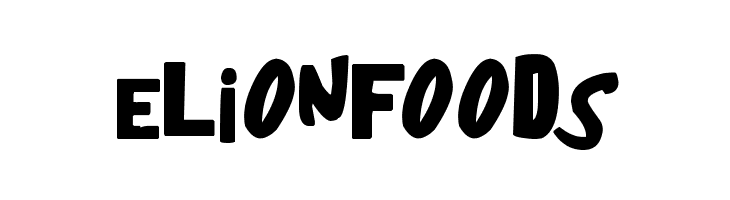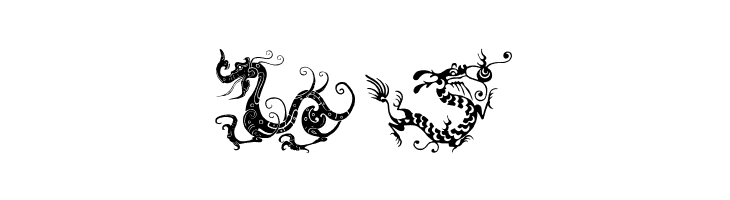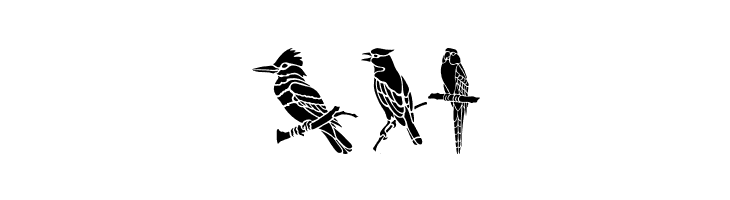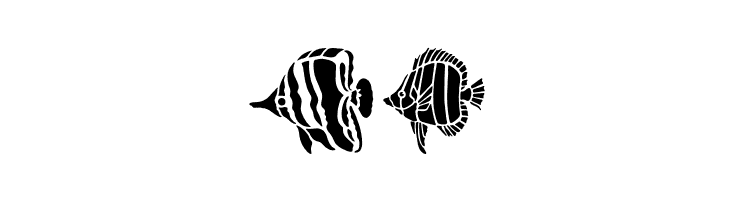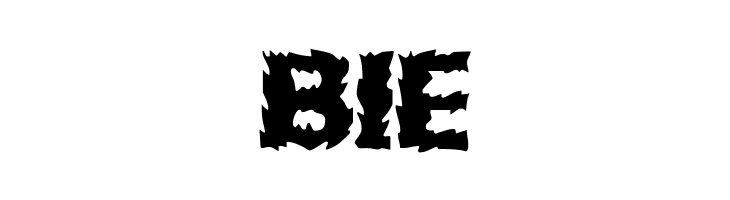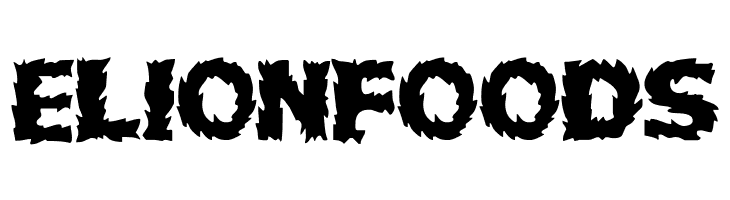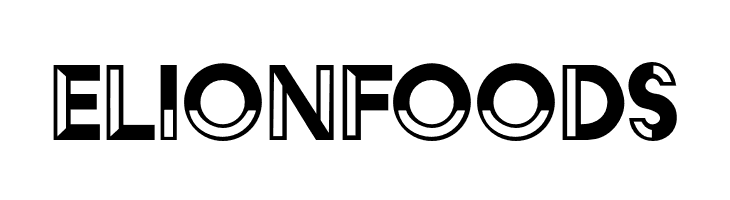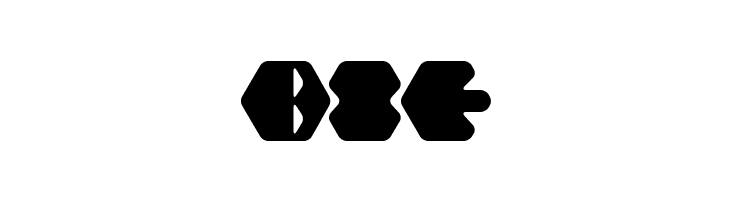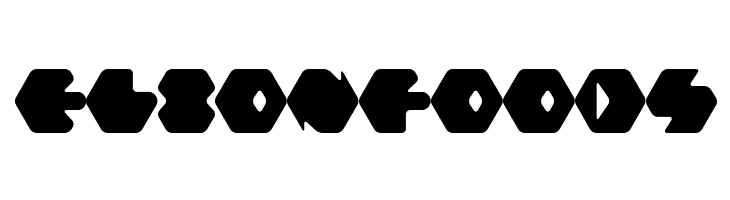
A bold, geometric font with rounded edges and a modern, futuristic look.
A playful, bold, and quirky hand-drawn font with irregular shapes.
A playful, bold, hand-drawn font with quirky, exaggerated shapes.
A decorative stencil font featuring intricate aquatic-themed designs.
Bird-themed stencil display font with unique illustrated glyphs.
A bold, geometric font with industrial and mechanical influences.
A decorative font with intricate dragon motifs forming each character.
A decorative font inspired by traditional Chinese dragons, featuring intricate and bold designs.
A modern, geometric font with sharp angles and a futuristic style.
A bold, flame-inspired font with jagged, dynamic characters.